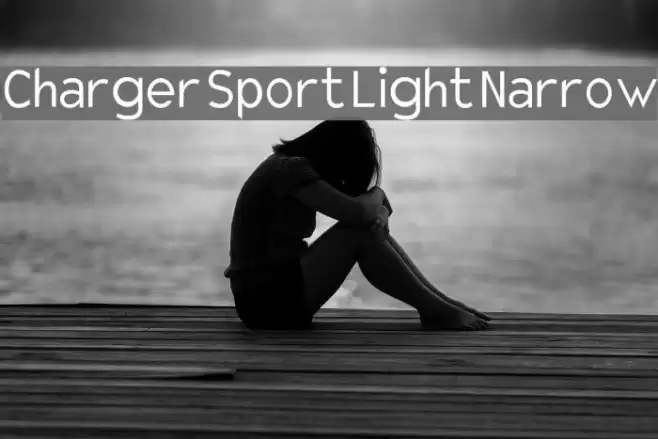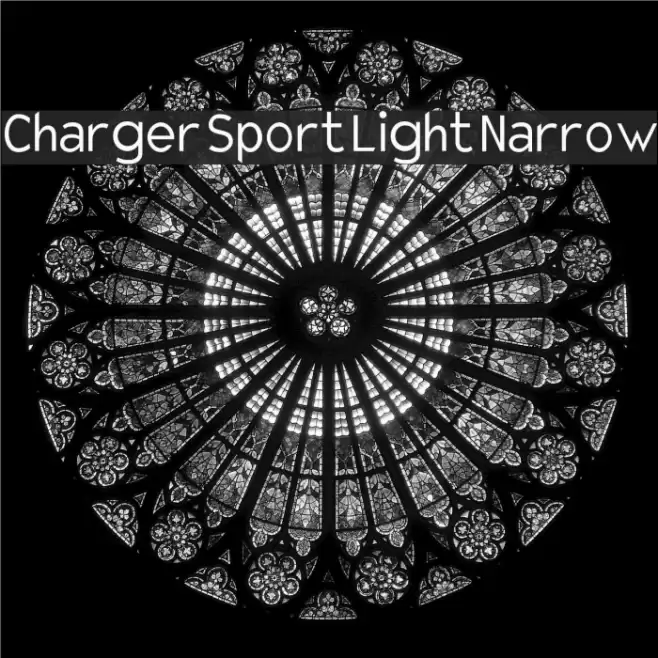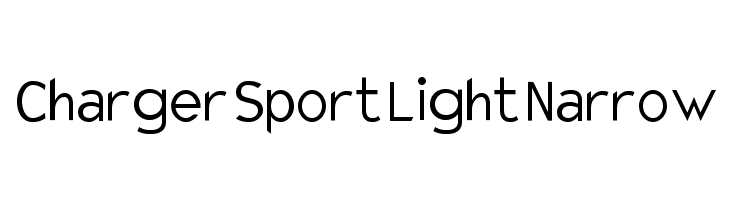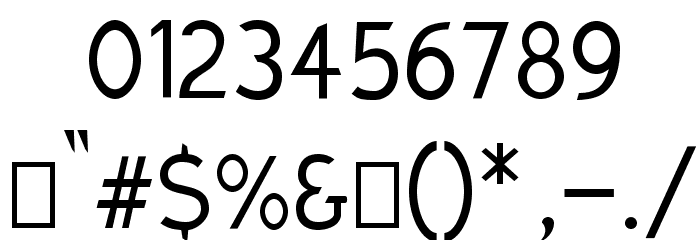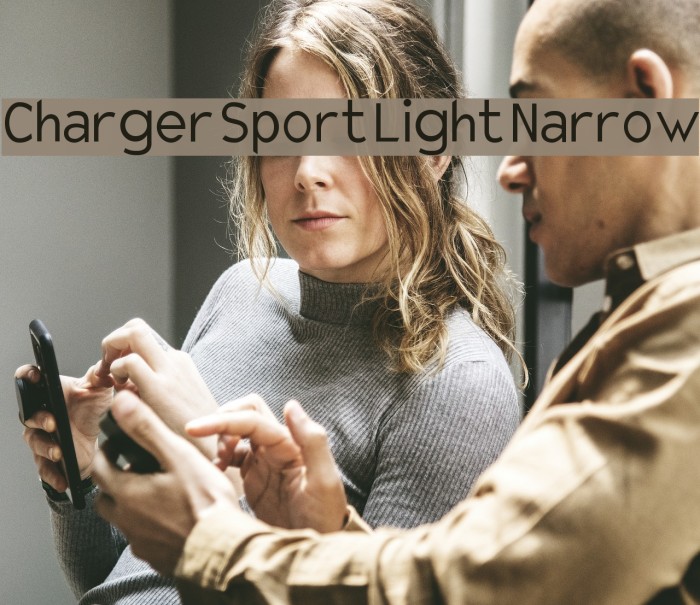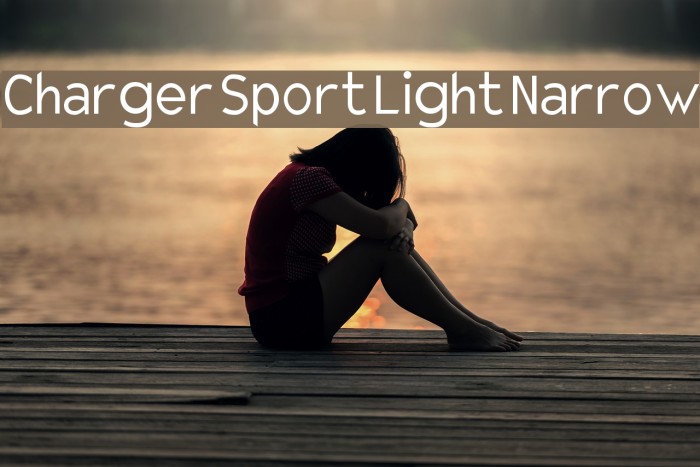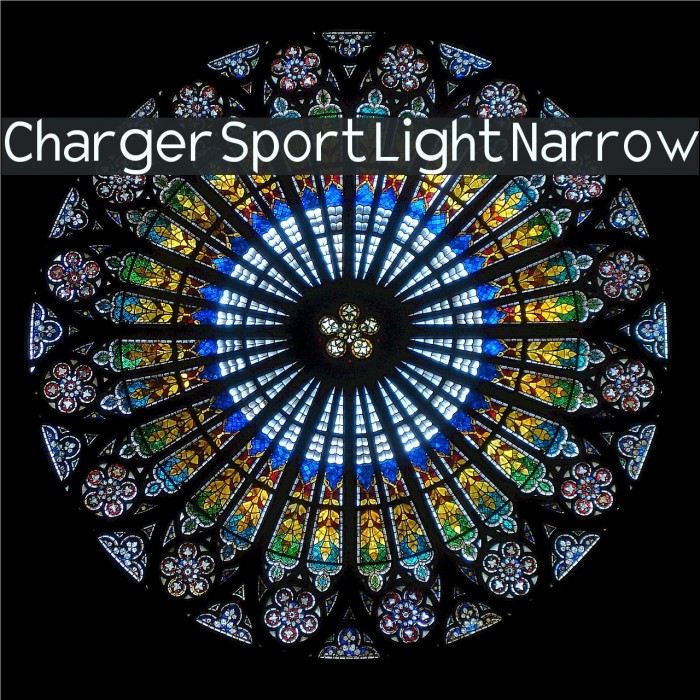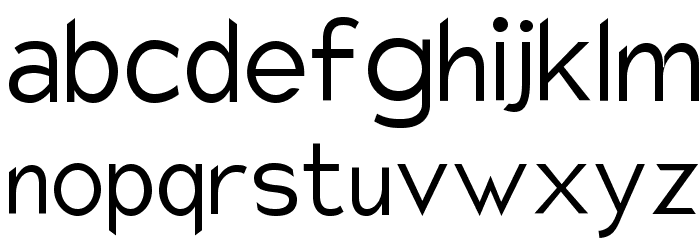
Charger Sport Light Narrow Font
Charger Sport Light Narrow Description
This font features a clean and modern sans-serif style with a light weight and narrow width. The characters are well-defined with a consistent stroke width, providing a sleek and contemporary appearance. The uppercase and lowercase letters maintain a uniform height, contributing to a balanced and harmonious look. The numerals are clear and easy to read, making them suitable for various applications. Special characters are included, enhancing the font's versatility. Overall, this font exudes a sense of simplicity and elegance, making it ideal for modern design projects.
A modern, light, and narrow sans-serif font with clean lines from Uncategorized fonts.